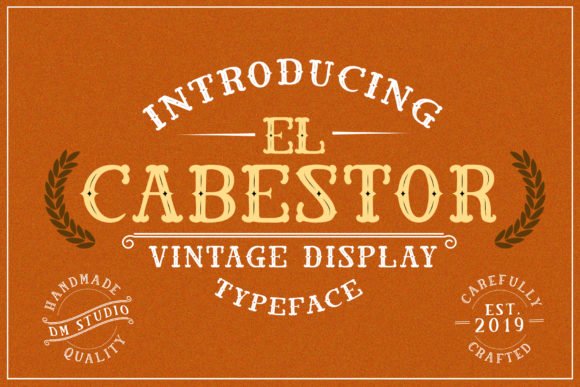
Get Ready to Rodeo: Introducing El Cabestor Font
As designers, we’ve all been there – staring at a blank canvas, feeling the creative pressure build up, and yearning for that perfect font to give our project the oomph it needs. For me, it was a Western-themed design project that had me searching high and low for the perfect font. That’s when I stumbled upon El Cabestor Font, a bold, retro-themed display font that screamed “Western vibes” from the get-go.
El Cabestor Font is the perfect addition to any Western-themed design project, bringing a powerful vibe that’s sure to leave a lasting impression. Whether you’re designing a poster for a rodeo, a menu for a cowboy-themed restaurant, or even a logo for a Western-inspired brand, this font is sure to bring it all together. And the best part? It’s a valuable resource for designers looking to add some authenticity to their projects.
El Cabestor Font Key Features
- Unique Characteristic: This font features a bold and playful aesthetic with a mix of modern and vintage elements, making it suitable for a wide range of designs.
- Font Style: Available in regular and bold styles, providing flexibility for designers to choose the perfect fit for their design needs.
El Cabestro Font Review
El Cabestro Font has some great features that make it a good choice for certain projects. ✨ The font’s unique and quirky style adds a touch of personality to any design. It’s perfect for use in modern, creative, or artistic contexts where a non-traditional font is desired. ✨ The font’s bold and playful strokes create a sense of energy and dynamism, making it great for headings, titles, or display text.
Additionally, El Cabestro Font has a good range of weights, from Light to Bold, giving designers flexibility in how they use it. ✨ The font also includes some fun and creative ligatures, which can add an extra layer of interest to text.
However, El Cabestro Font also has some limitations that designers should be aware of. ⚠️ One of the main issues is that the font can be difficult to read at smaller font sizes, especially in body text. ⚠️ The font’s unique style can also make it difficult to pair with other fonts, which can limit its use in more traditional or formal designs.
Overall, El Cabestro Font is a fun and creative choice for designers who want to add some personality to their projects. While it has some limitations, it’s a great option for modern and artistic designs. Just be aware of the potential readability issues and limitations when pairing it with other fonts.
Design Considerations
- Use El Cabestro Font for headings, titles, or display text.
- Pair El Cabestro Font with other fonts that complement its unique style.
- Use larger font sizes to ensure readability.
- Avoid using El Cabestro Font for body text at smaller font sizes.
El Cabestor Font Practical Application Guide
Tips for Getting the Most Out of El Cabestor Font
El Cabestor Font is a versatile font that can be used in a variety of design contexts. Here are some tips for getting the most out of it: